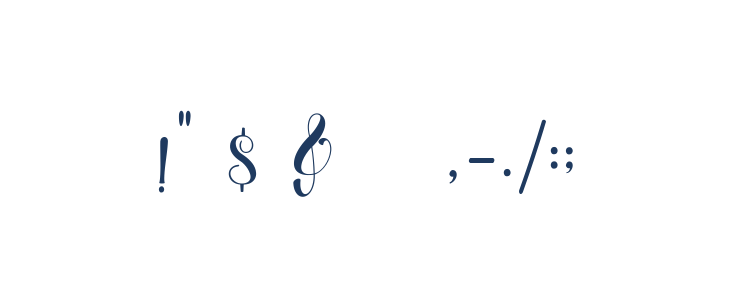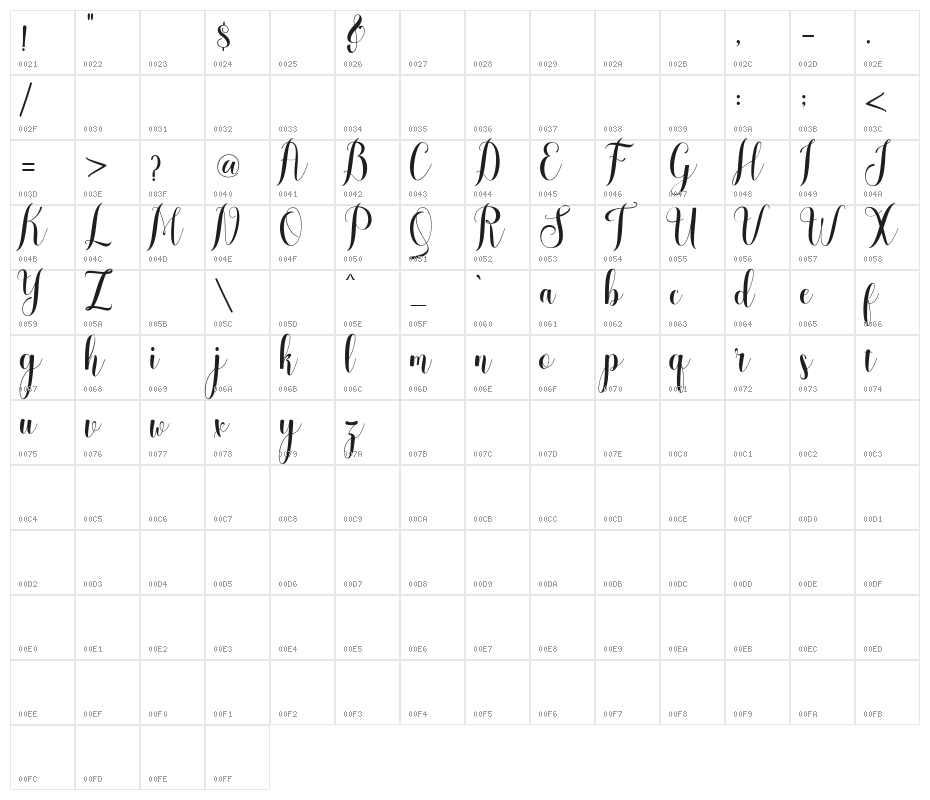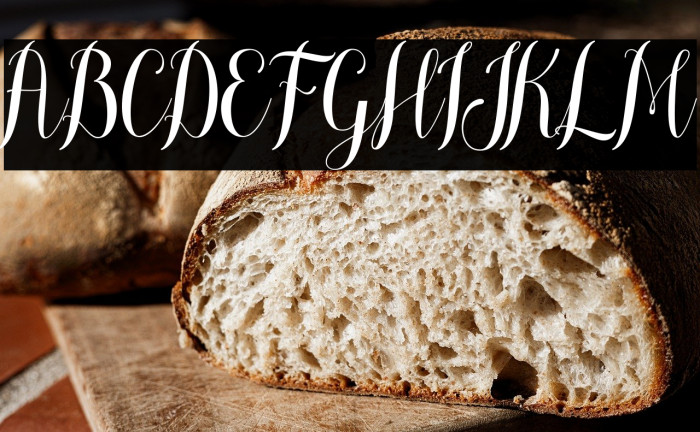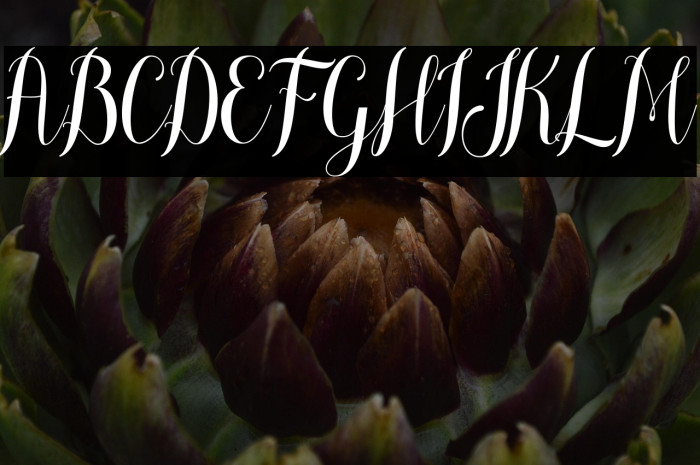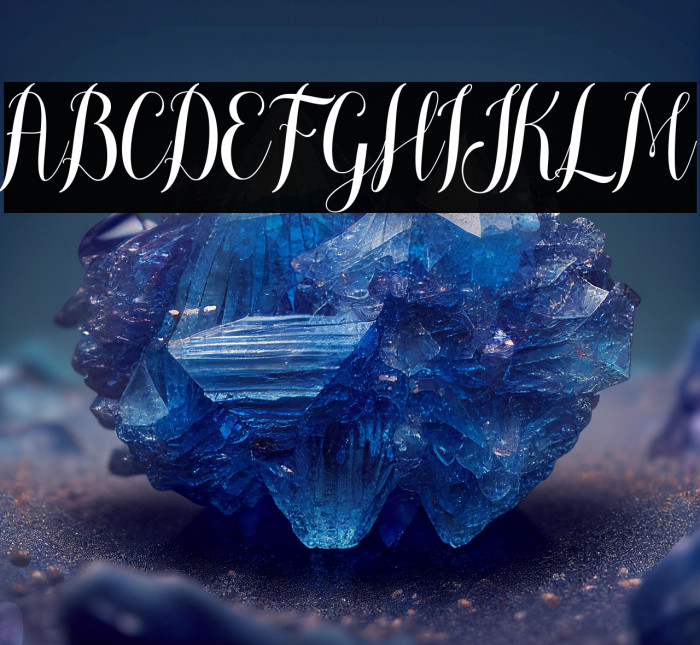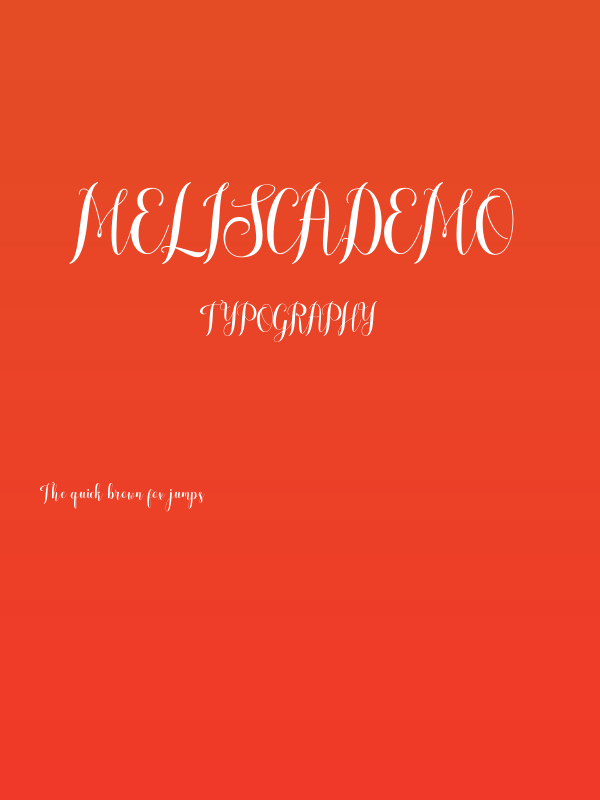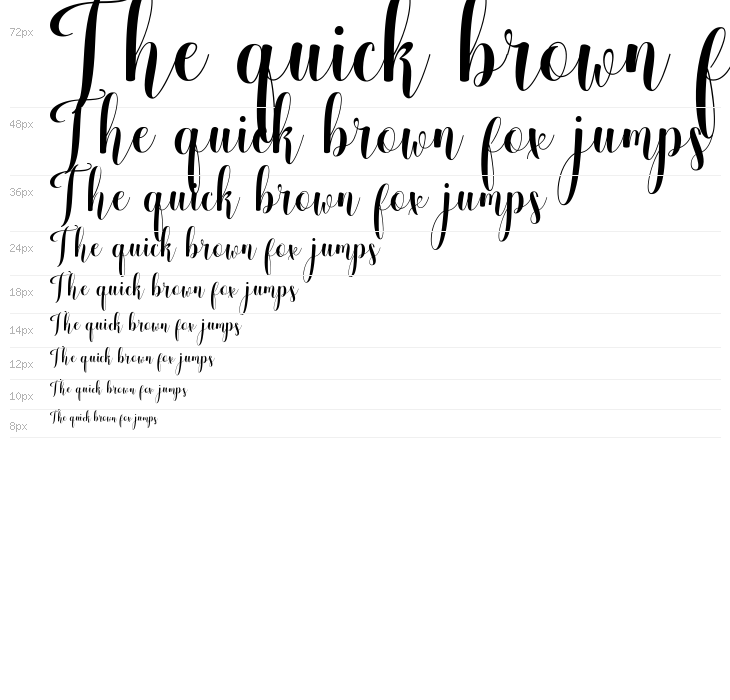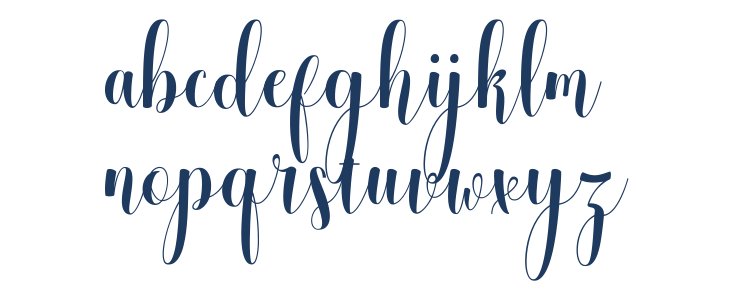
meliscademo Font
meliscademo Description
This elegant script font features a flowing, cursive style with high contrast between thick and thin strokes. The uppercase letters are ornate, with sweeping curves and flourishes that give a sense of movement and grace. The lowercase letters maintain a consistent style, with elongated ascenders and descenders that enhance the font's decorative appeal. The numerals and special characters are designed to complement the overall aesthetic, with similar attention to detail and fluidity. This font is ideal for projects that require a touch of sophistication and elegance, such as invitations, branding, and editorial design.
| Overall Style | Elegant, Decorative |
| Use Case | Headlines, Invitations, Branding |
| Proposed Projects | Ideal for wedding invitations, luxury branding, editorial design, and elegant packaging. |